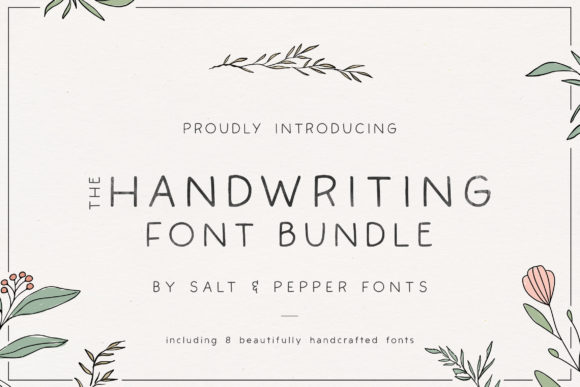
Looking for a way to add a personal touch to your next project? Look no further than The Handwriting Bundle Font! This collection of eight stunning and distinctive fonts is the perfect way to bring a handmade feel to any design.
Created by Salt and Pepper Fonts, The Handwriting Bundle Font Family offers a wide range of options to suit any style or mood. Whether you're looking for a clean and modern sans-serif or a more whimsical and playful script, this collection has you covered.
And with their keyword-rich names and emotional appeal, these fonts are sure to capture the attention of anyone looking for a unique and personalized touch. Whether you're creating invitations, social media posts, logos, or anything in between, The Handwriting Bundle Font Family will help you stand out from the crowd.